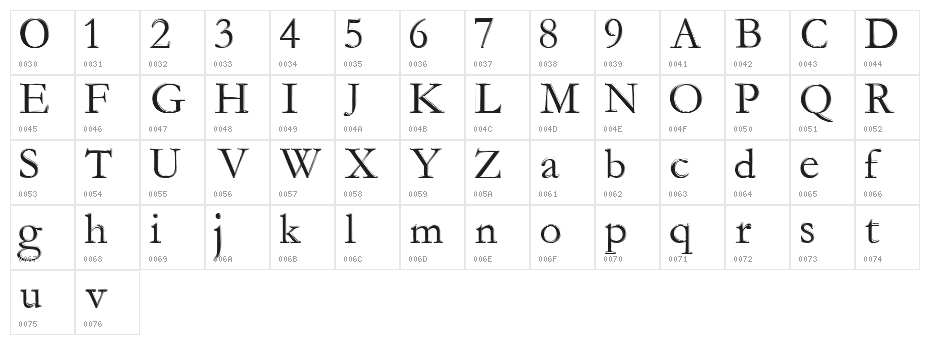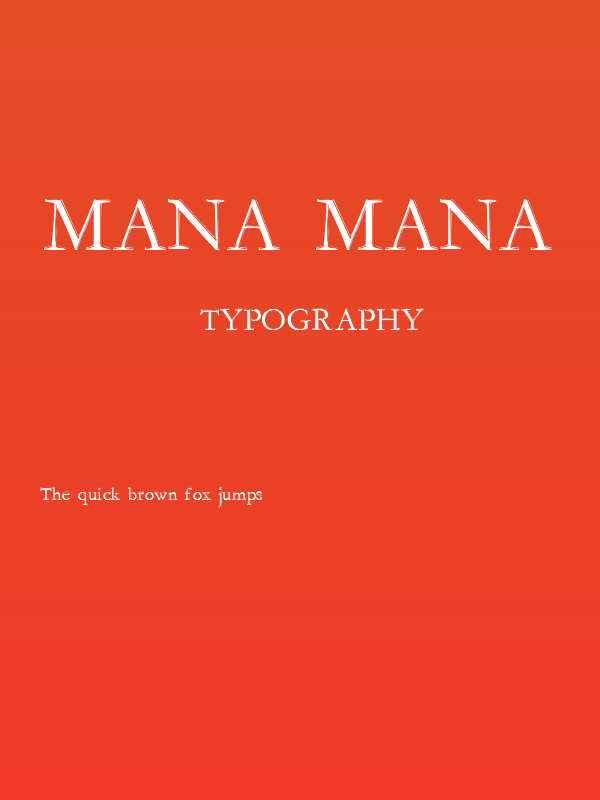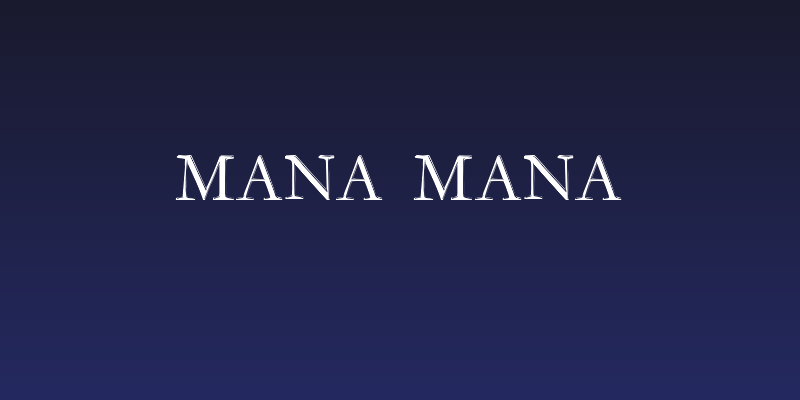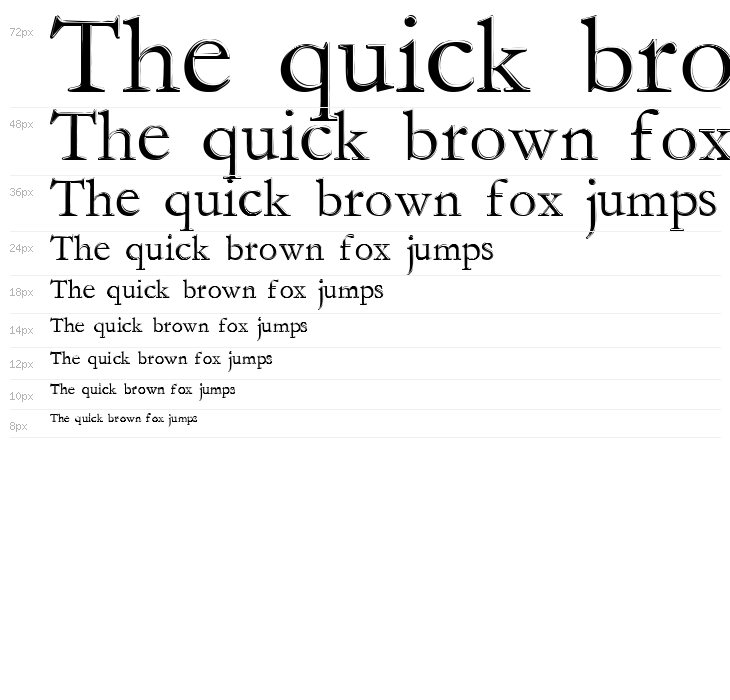
Mana Mana Font
Mana Mana Description
This font features a classic serif style with elegant, elongated strokes and subtle curves. The uppercase letters are tall and stately, while the lowercase letters maintain a consistent flow with slightly rounded edges. The numerals are bold and distinct, providing excellent readability. The special characters are designed with a similar attention to detail, ensuring they complement the overall aesthetic. The font's design is both timeless and versatile, making it suitable for a variety of applications. Its refined appearance is ideal for projects that require a touch of sophistication and class.